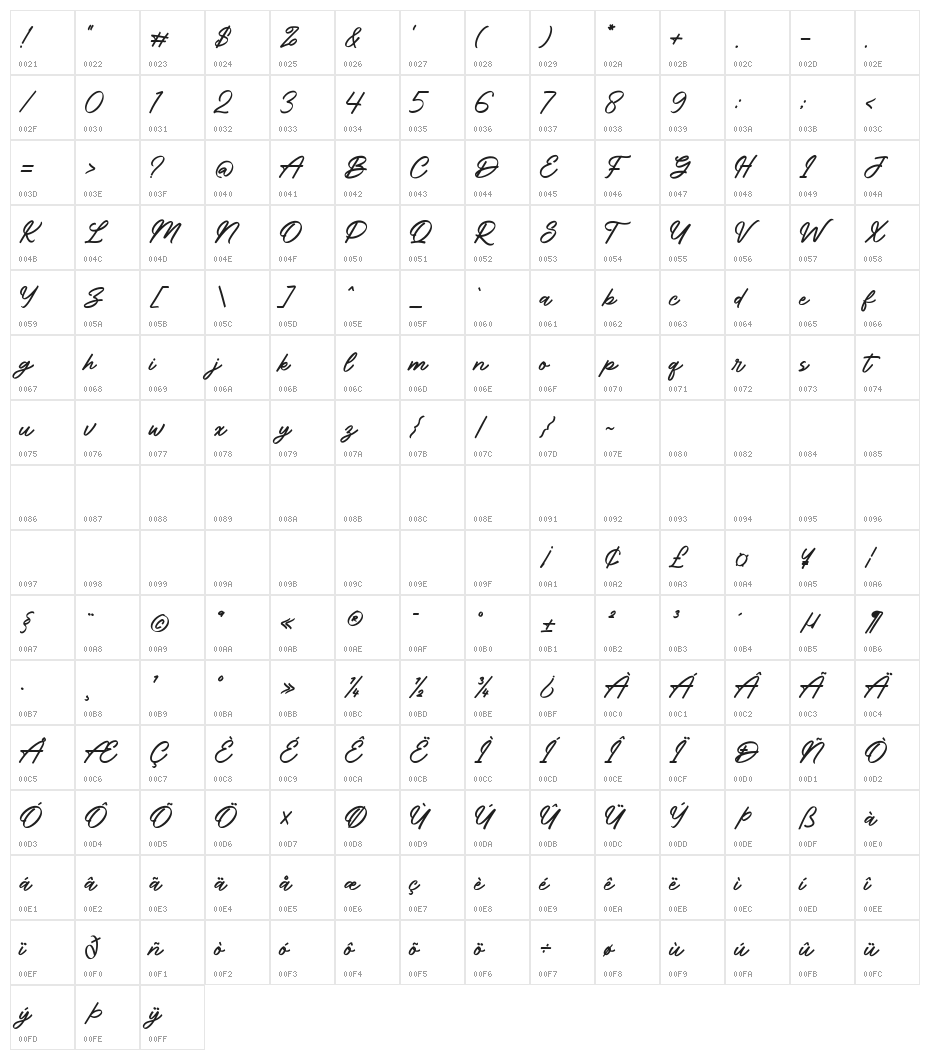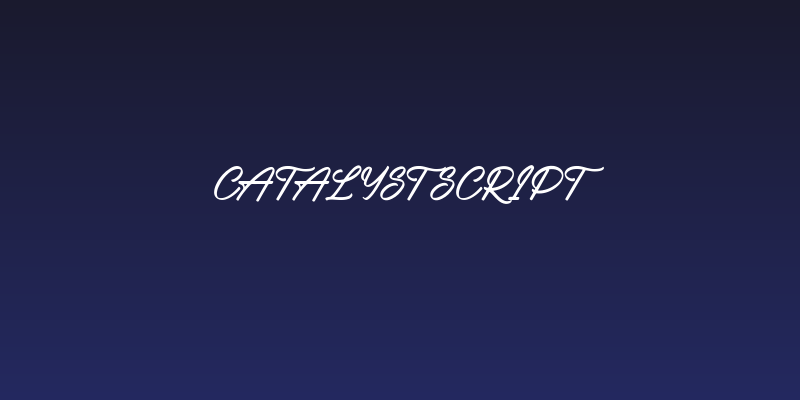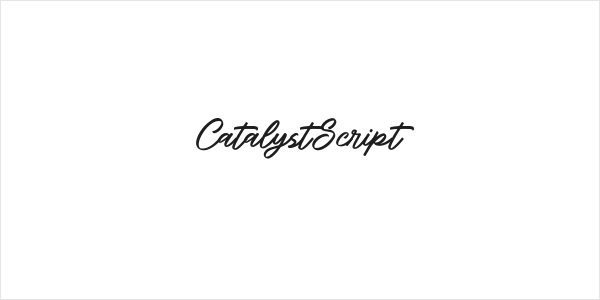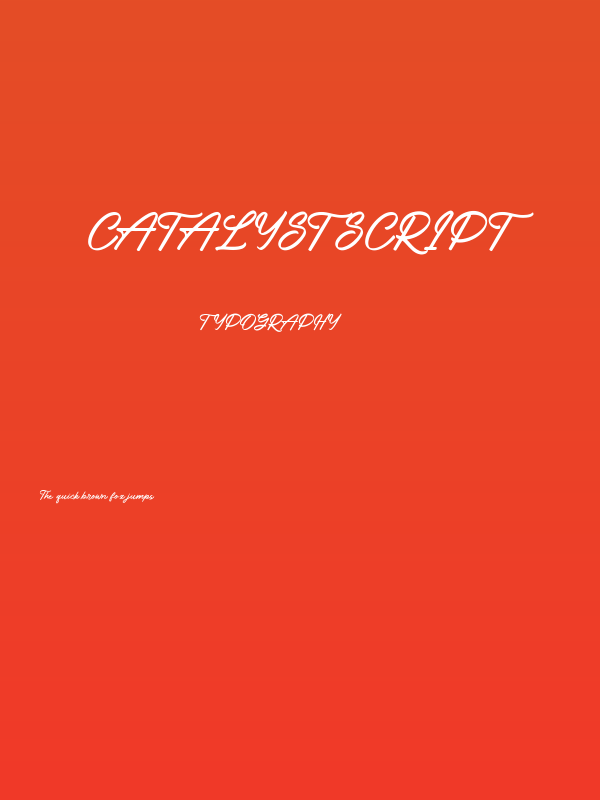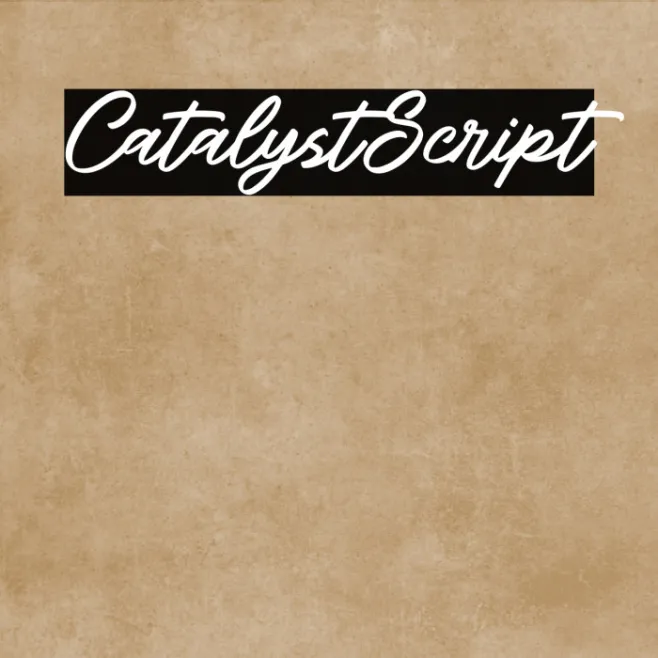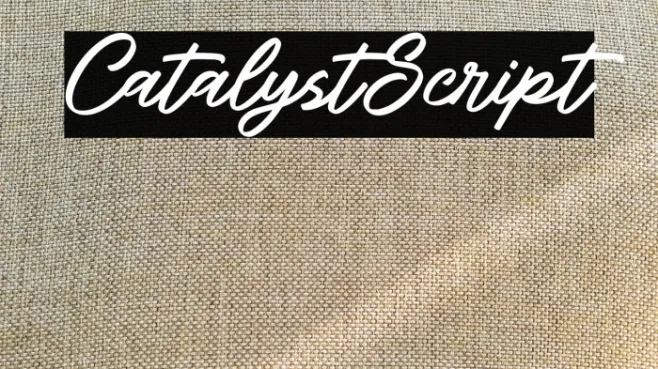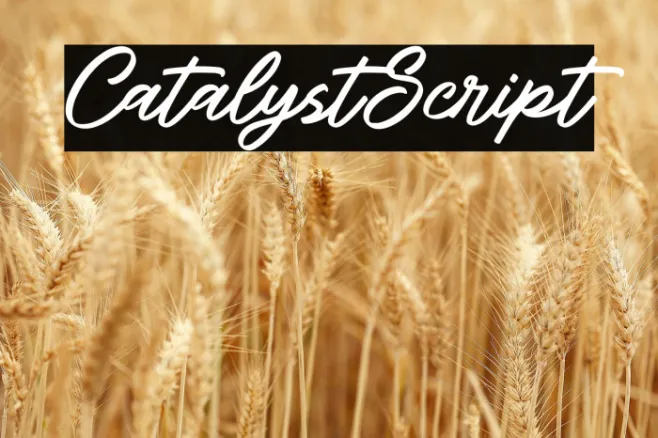
CatalystScript Font
CatalystScript Description
This font exudes a flowing, elegant script style, characterized by smooth, connected strokes that mimic natural handwriting. The uppercase letters are bold and slightly slanted, adding a dynamic and sophisticated flair. The lowercase letters maintain a consistent flow, enhancing readability while retaining a personal touch. Numbers and special characters are crafted with the same fluidity, ensuring a cohesive appearance across all text. The overall design is both classic and modern, making it versatile for various applications.
| Overall Style | Elegant, Modern |
| Proposed Projects | Ideal for wedding invitations, greeting cards, branding, and logo design, where a personal and elegant touch is desired. |